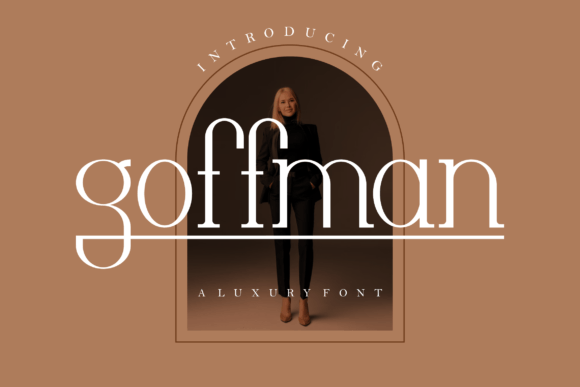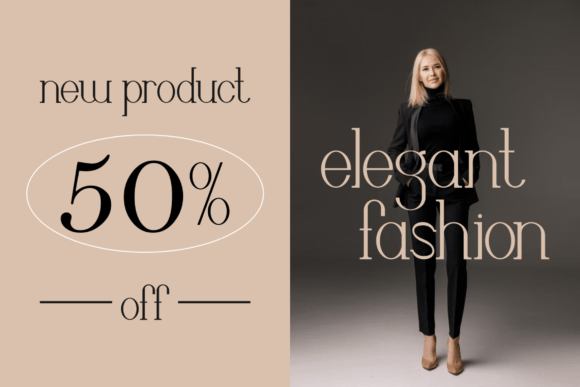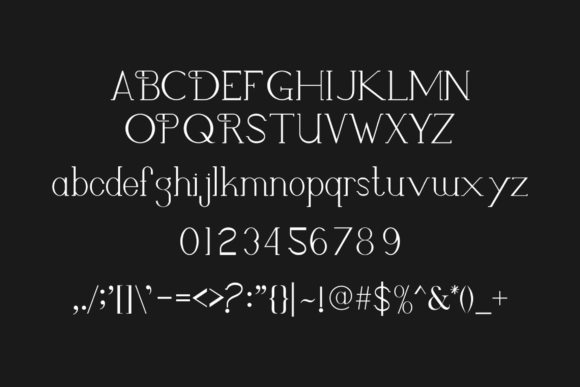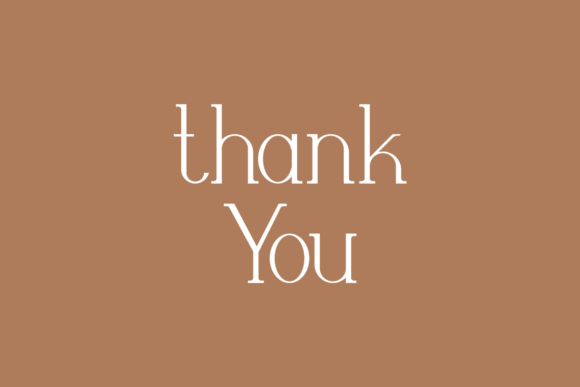
Goffman Font
About Goffman Font
“Goffman” is not just a font; it’s a beautiful and light handwritten masterpiece that carries a unique feel and a stunning impact. From the moment you set eyes on it, you’ll notice its exceptional charm, making it the perfect choice for infusing a touch of luxury into your design projects.
The beauty of “Goffman” lies in its handwritten elegance. The characters flow effortlessly, capturing a sense of grace that adds sophistication to any text. Whether used for invitations, branding, or any creative endeavor, this font is designed to elevate your designs to new levels.
The lightness of “Goffman” enhances its versatility. It’s well-suited for a wide range of applications, making it a go-to choice for various design projects. Whether you’re working on wedding invitations, branding materials, or any creative piece, “Goffman” has the ability to bring a luxurious spark to your vision.
Imagine using “Goffman” for elegant wedding invitations. The handwritten charm creates a personal and intimate touch, setting the tone for a memorable celebration. The unique feel of the font ensures that your designs stand out, making a lasting impression on those who receive them.
In branding, “Goffman” becomes a signature element that communicates sophistication and style. Its stunning impact resonates with audiences, leaving a positive and memorable imprint. The light touch of the font contributes to a sense of approachability, making it suitable for a variety of businesses and industries.
Whether you’re crafting social media graphics, posters, or any other design, “Goffman” becomes the secret ingredient that turns ordinary into extraordinary. Its uniqueness and beauty shine through, creating a visual experience that captivates and resonates.
In essence, “Goffman” is more than a font; it’s a design companion that enhances your creativity, adding a touch of luxury and sophistication to every project. Its light and beautiful handwritten style make it a valuable asset for designers seeking to elevate their work and create a lasting impact.